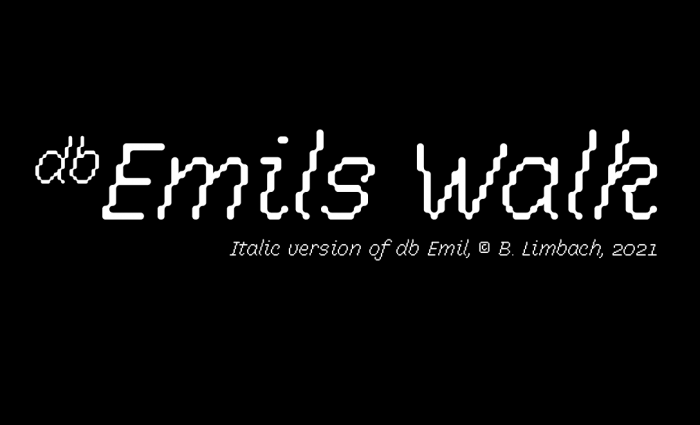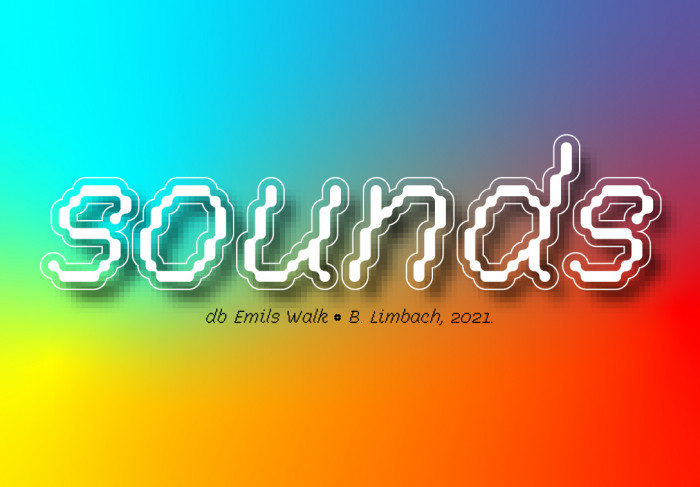
Congratulations! FontStruct Staff have deemed your FontStruction worthy of special mention. “db Emils Walk” is now a Top Pick.
Pretty and elegant point of view for this nice italic. Congrats on the TP, Maestra!
‘[T]he fastest feedback ever’... Yup!  Top Pick'd just 18 minutes after being published.  That's the fastest I've seen so far, even for you!
And as with all your fonts, this looks nice.  Great work!
The waves and italic style give off the air of rippling water, whether intentional or not, creating yet another well deserved (and speedy) Top Pick 10/10
Beautiful. 10/10
Very elegant!
amazing. this looks like SM64.